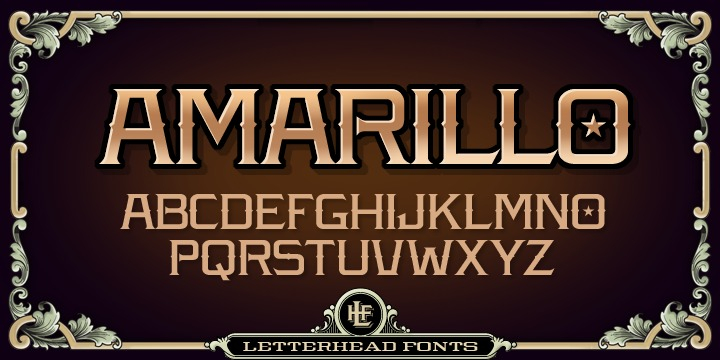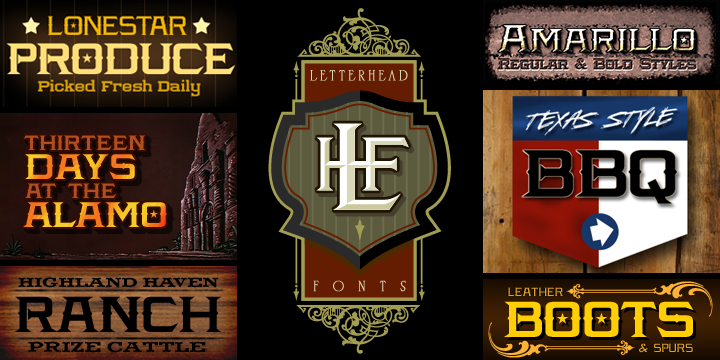
Designed by Chuck Davis, LHF Amarillo is a western font family. This typeface has two styles and was published by Letterhead Fonts.
Unusual square style. Surprisingly easy to read even at small sizes. Regular & Bold styles. Includes large and small caps, punctuation and numerals.
Style | Western |
Designer | Chuck Davis |